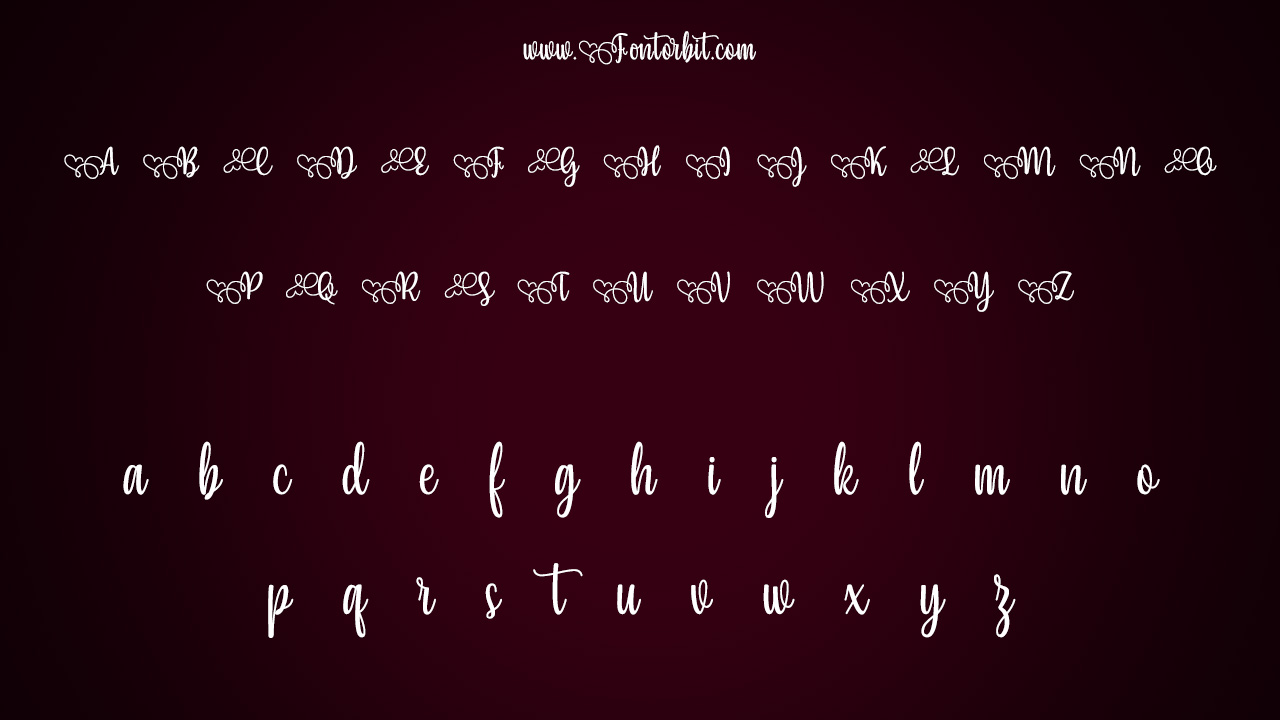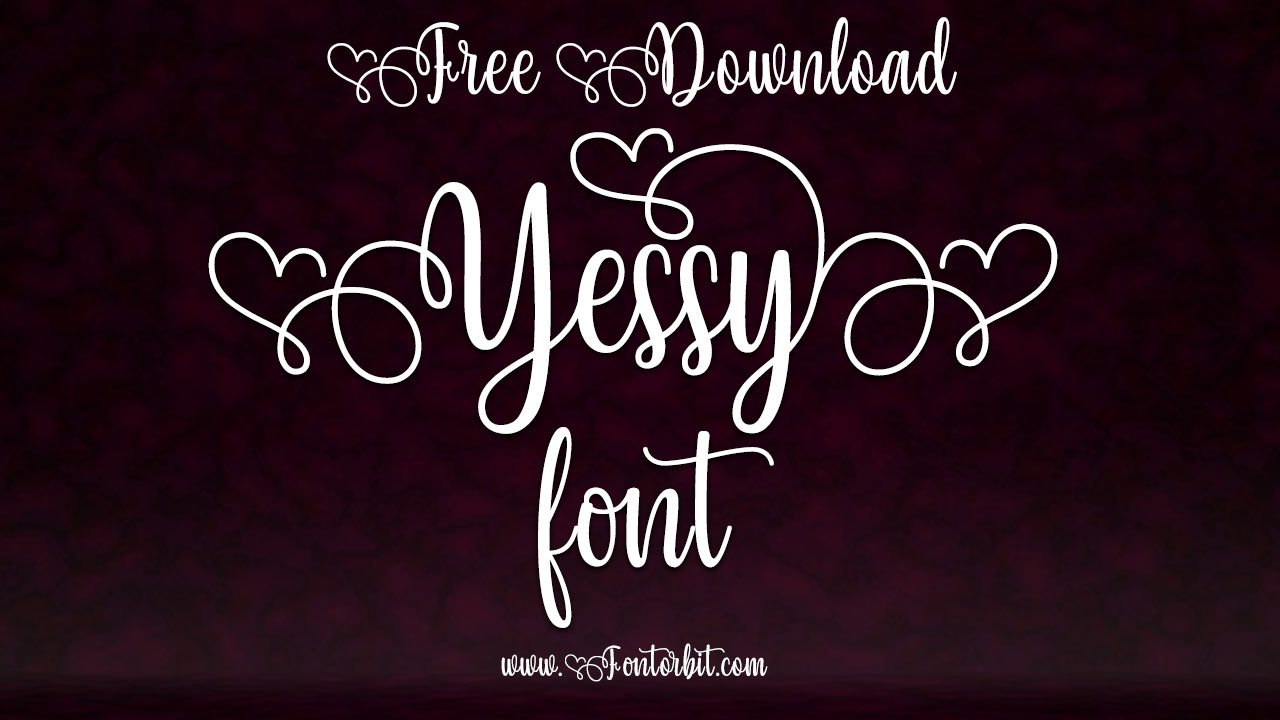
Yessy is a stylish and charming script font designed by 7NTypes. The font was initially published around 2017 and quickly gained popularity for its hand-lettered design that evokes a friendly and personal touch.
The Yessy font family is perfect for various creative projects, including logos, wedding invitations, quotes, and more. Its versatility and elegance have made it a popular choice for designers looking to add a hand-crafted feel to their work.
Due to its feminine, playful, and elegant script style, the Yessy font has been widely used in wedding invitations, greeting cards, social media posts, and branding projects. It’s also used in merchandise design, especially in products that aim to convey a delicate and sophisticated aesthetic.
Yessy best suits personal projects like stationery design, logo creation, branding materials, and social media graphics. It shines particularly well for wedding invitations, event announcements, and custom signage. The script’s delicate and smooth appearance also makes it great for digital media, including Instagram quotes and Pinterest images.
Yessy is a beautiful and versatile font that brings a personal, hand-drawn charm to any design project. Whether you’re working on a wedding invitation or a social media post, Yessy adds elegance and warmth to your creations. Its timeless script style continues to inspire designers worldwide.
1.What Makes Yessy Unique?
Its handwritten, flowing script style offers a personal and elegant touch to designs.
2.Is There A Bold Version Of Yessy?
Yes, the Yessy font family includes bold and bold italic versions.
6.Is Yessy Suitable For Logos?
Absolutely! Yessy’s elegant script makes it ideal for logos and branding.
9.Is Yessy Available In Multiple Languages?
Yessy supports basic Latin characters and is limited in its multilingual support.